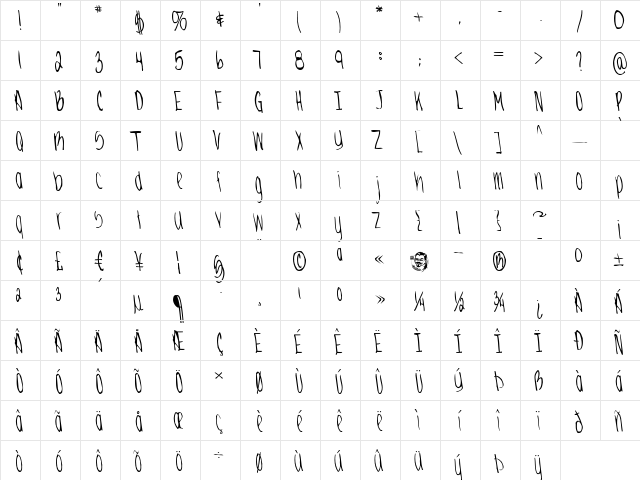
Jenna Regular
Design Context for Jenna Typeface
Jenna is a composed and adaptable typeface that performs quietly and consistently across a wide range of design contexts.